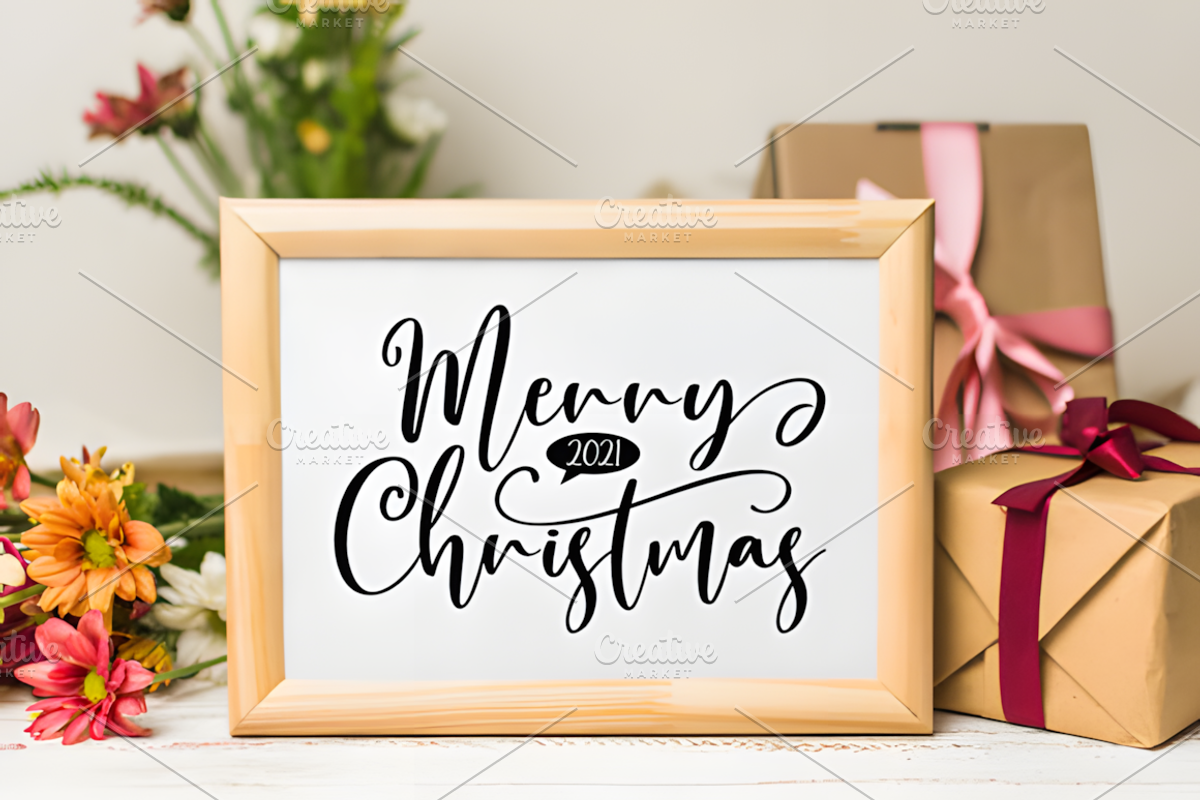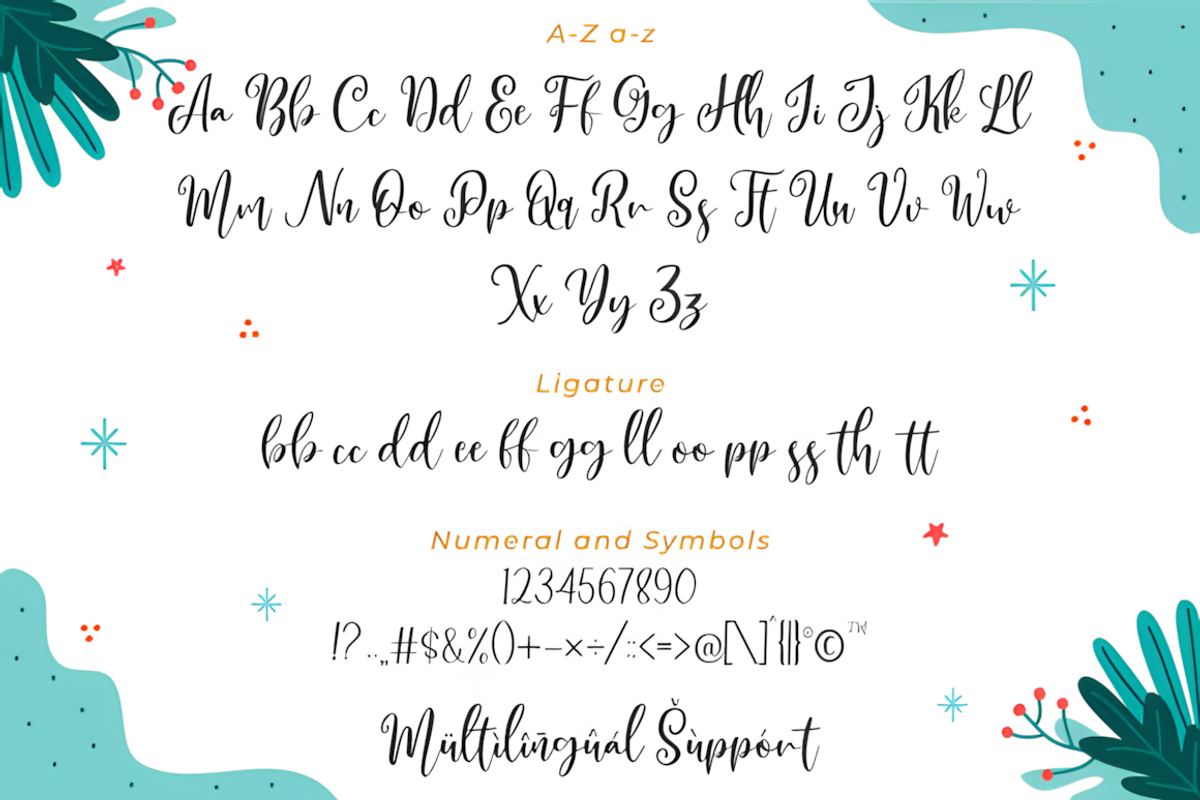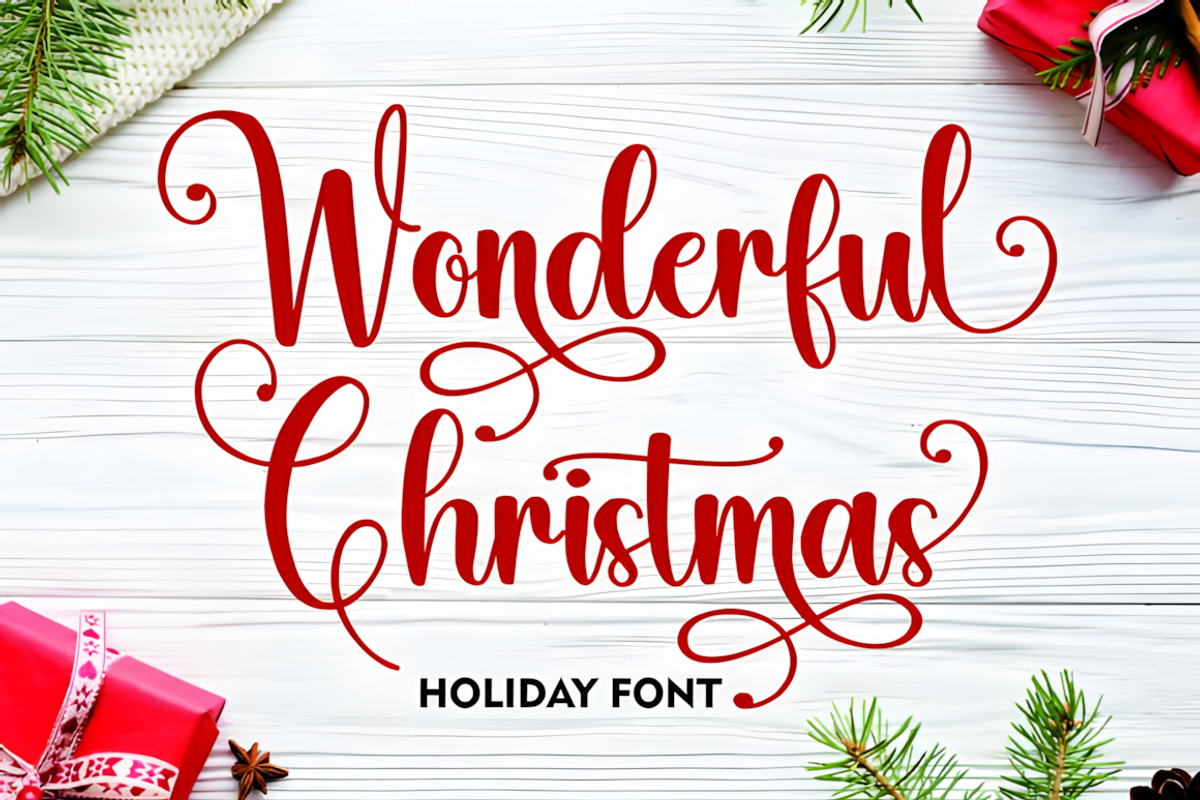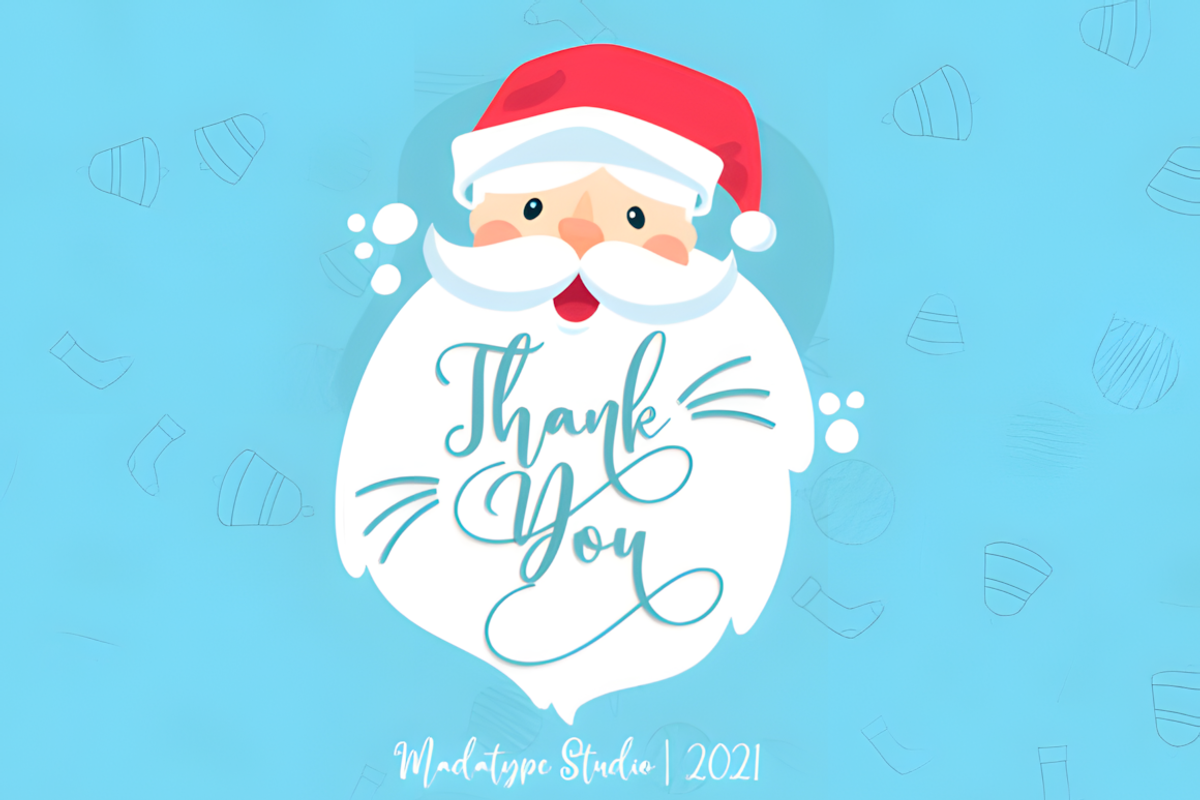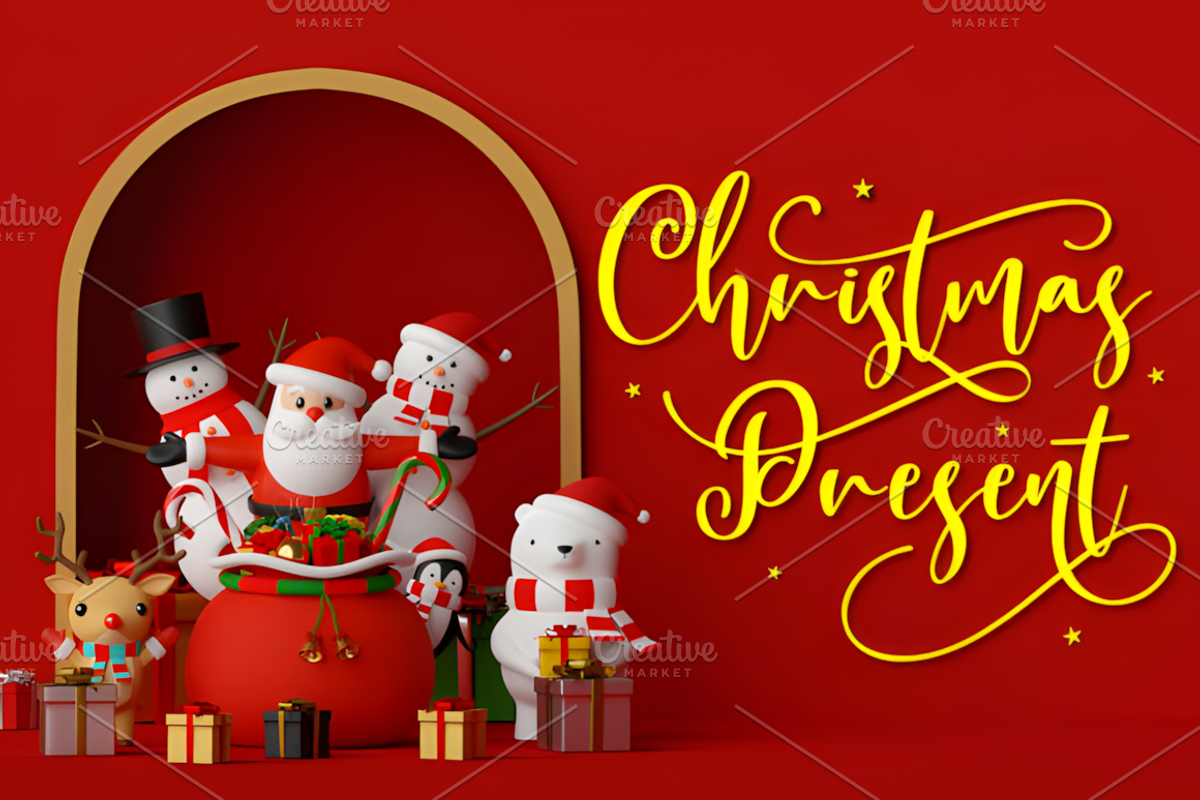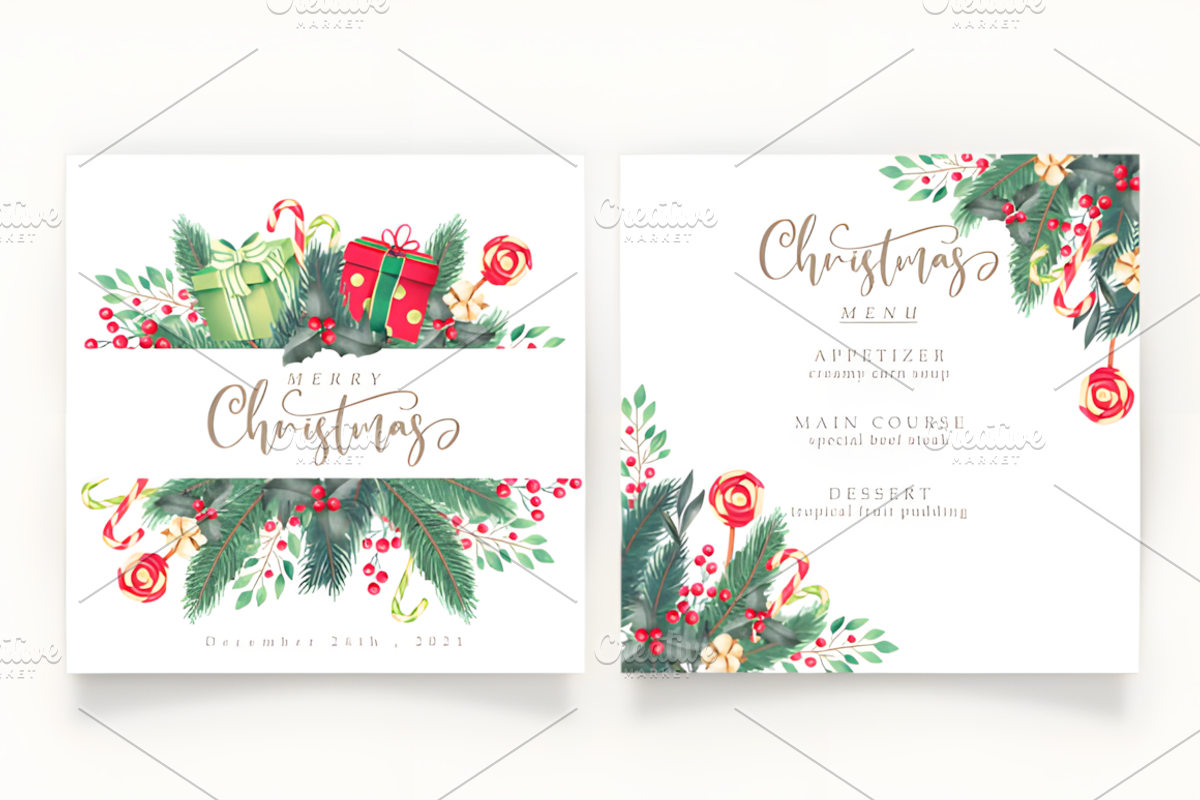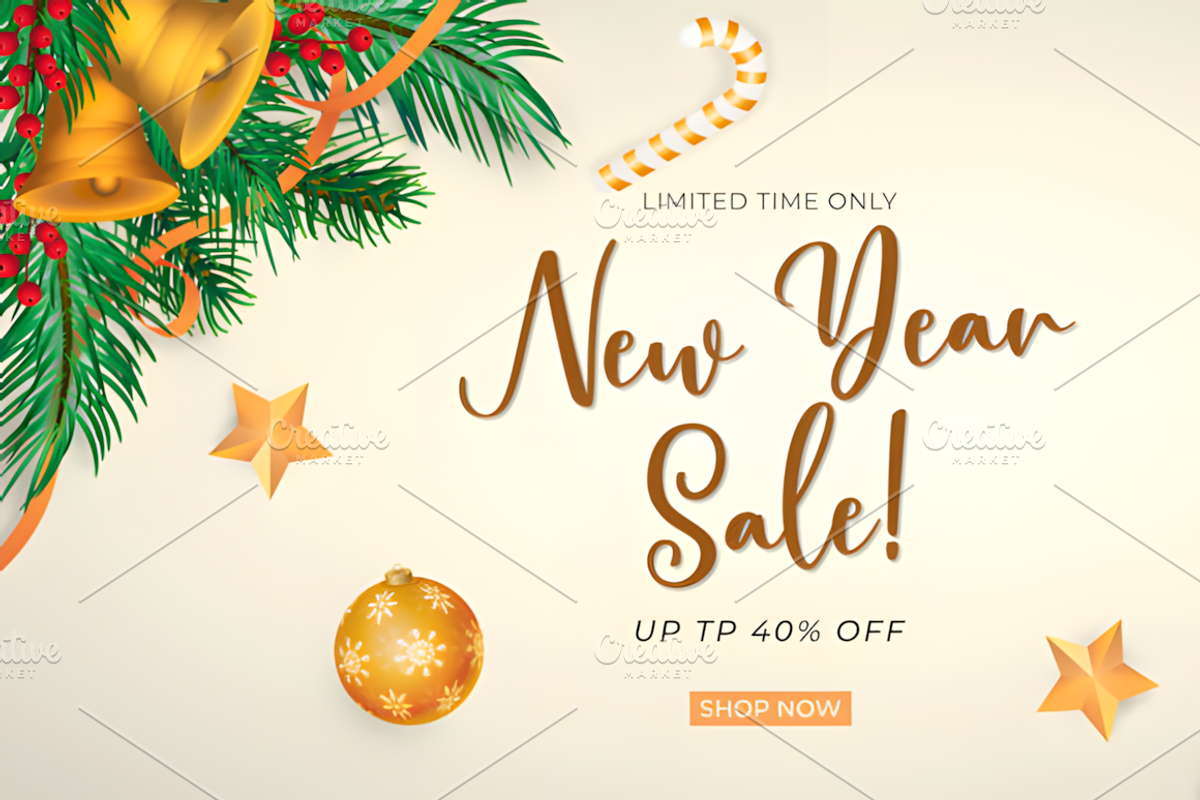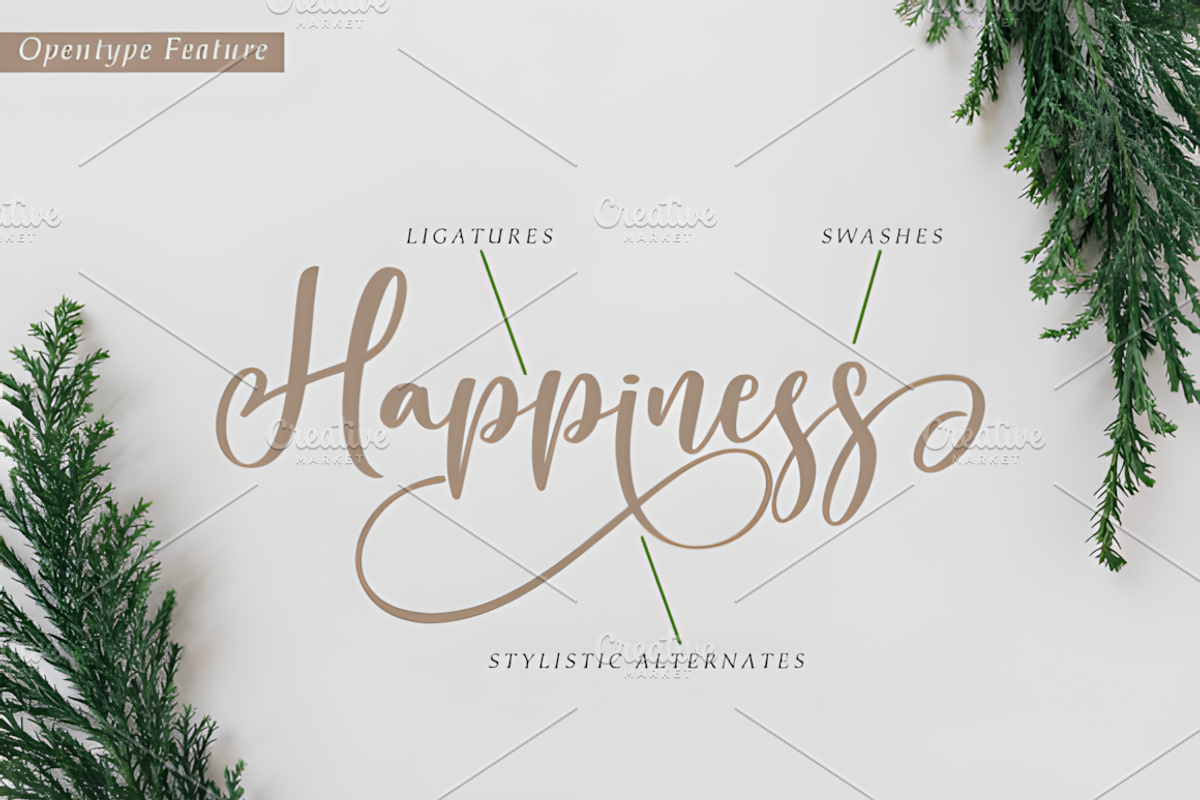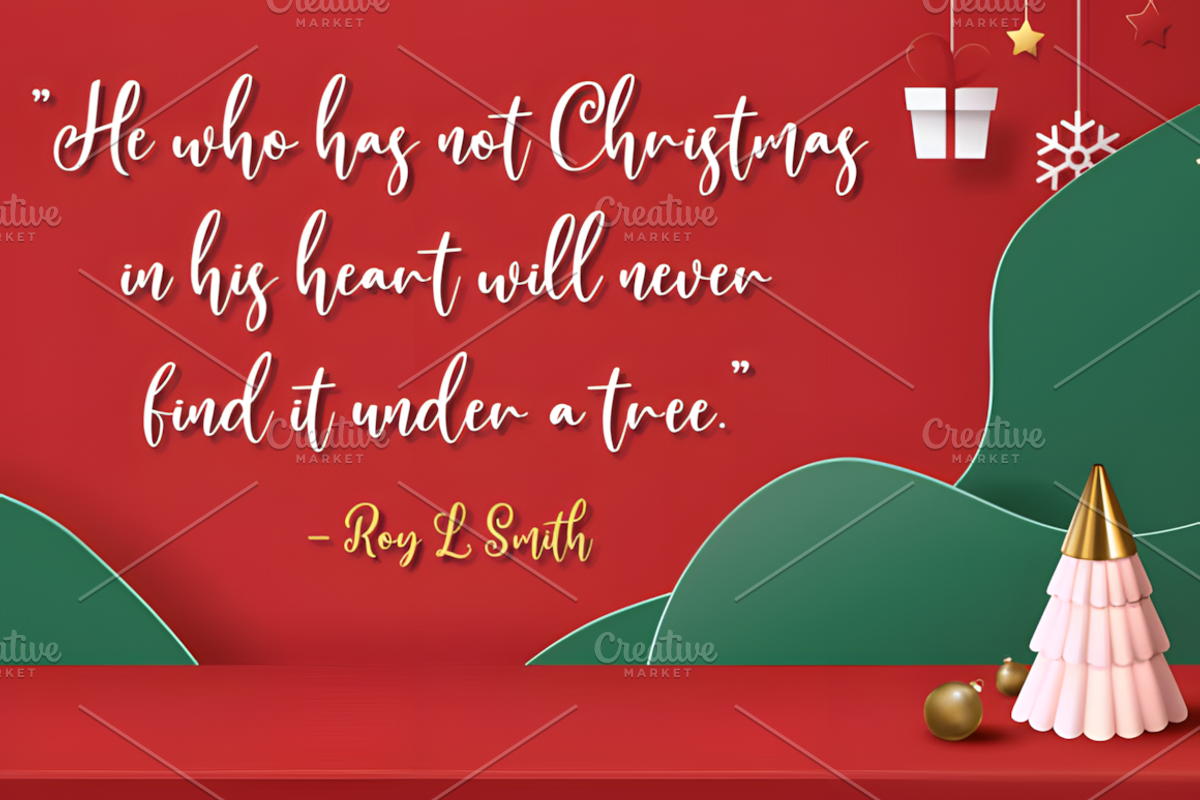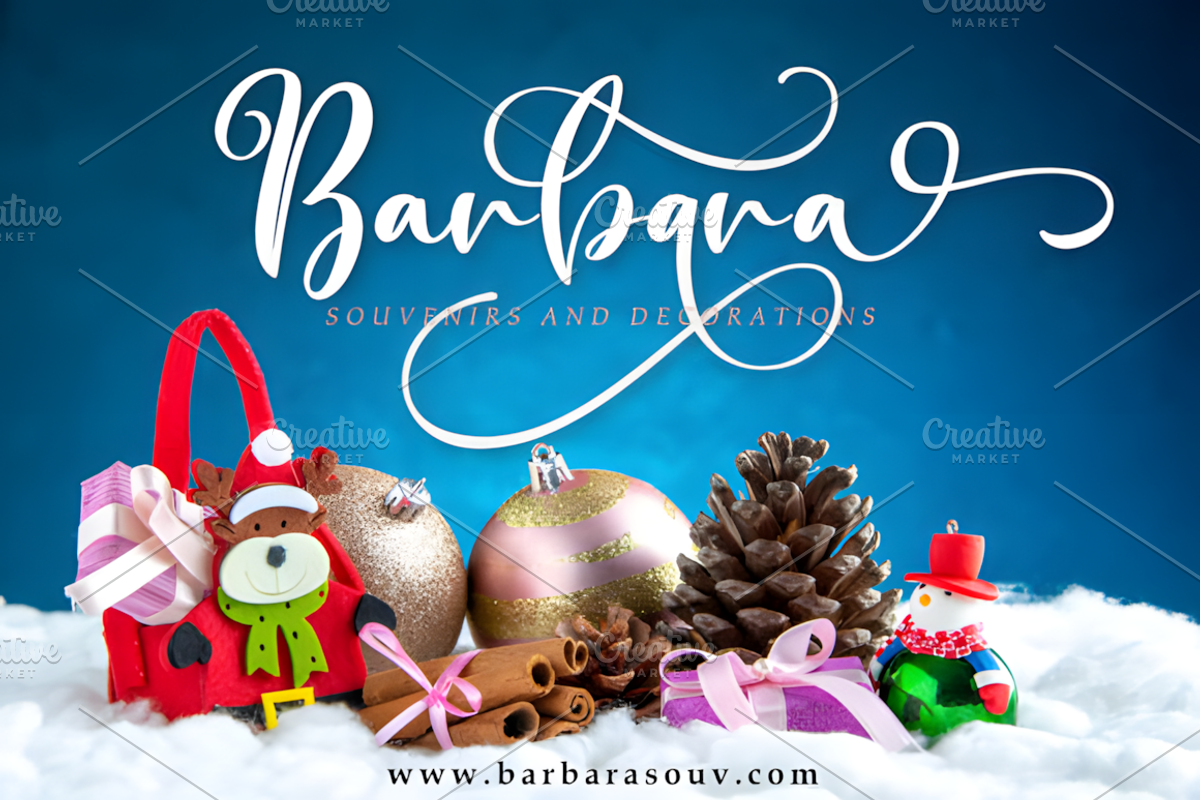
Wonderful Christmas Font
Wonderful Christmas font feels equally charming and elegant. It looks stunning on wedding invitations, thank you cards, quotes, greeting cards, logos, business cards and every other design which needs a handwritten touch. It is also PUA encoded which means you can access all of the glyphs and swashes with ease!